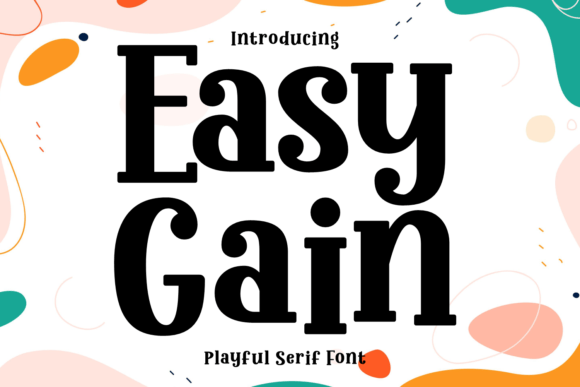
Introducing Easy Gain, the playful slab serif font from Creative Fabrica Fonts that's perfect for all your eye-catching design needs! With its thick, wide characters and chunky serifs, Easy Gain is sure to grab attention and make a statement.
Whether you're creating bold headlines, eye-catching t-shirt designs, attention-grabbing banners, or eye-catching product labels, Easy Gain is the font you need. Its playful, bold style is perfect for any design that needs to stand out from the crowd.
But Easy Gain isn't just about style – it's also incredibly versatile. This font works well for both print and digital designs, and its bold, chunky characters are easy to read at any size. Plus, with its extensive character set, you'll have all the glyphs you need to make your designs truly unique.